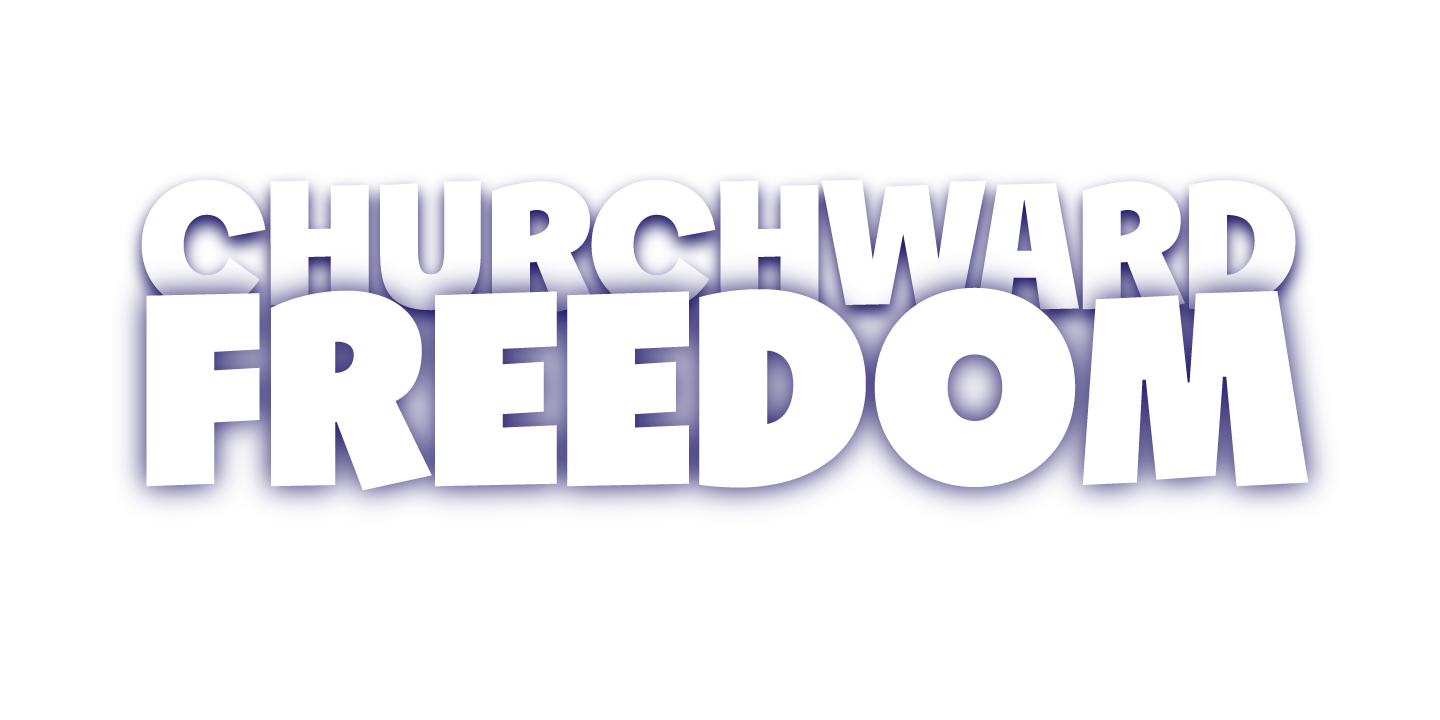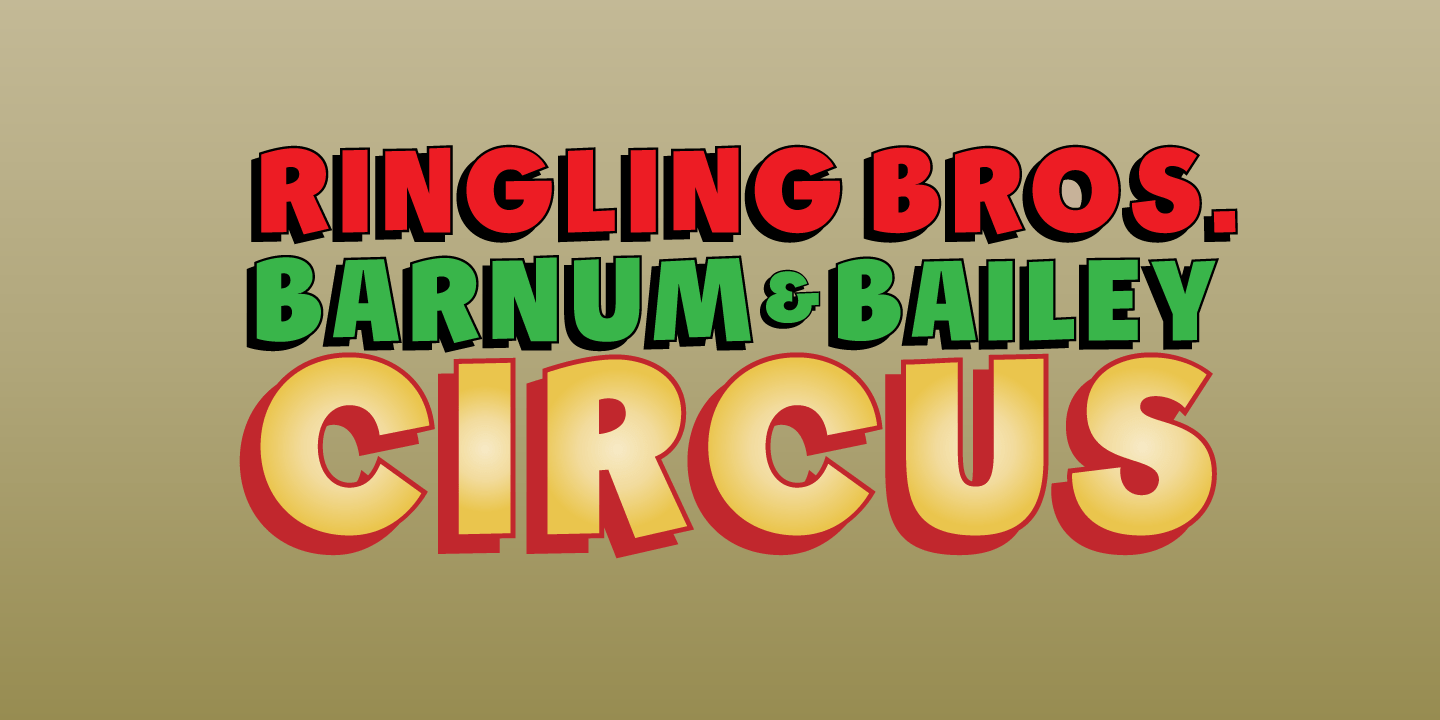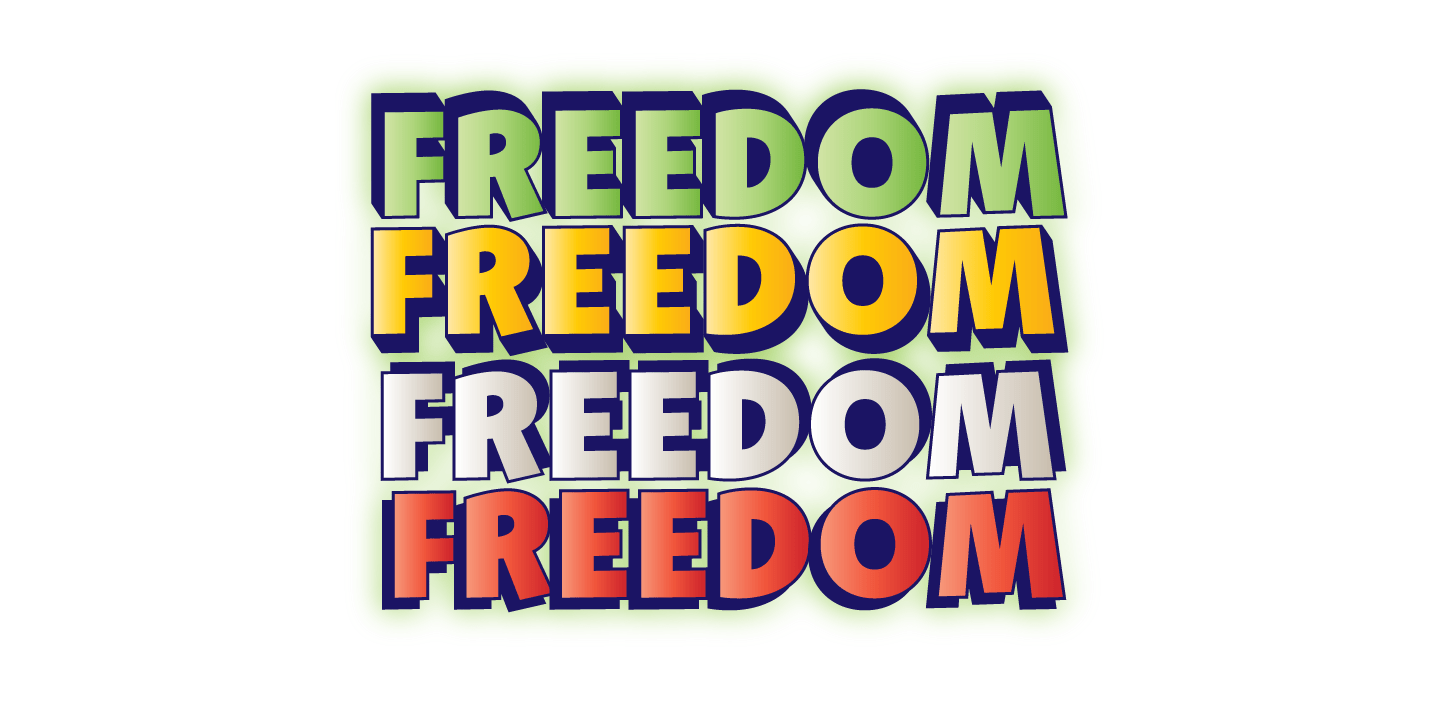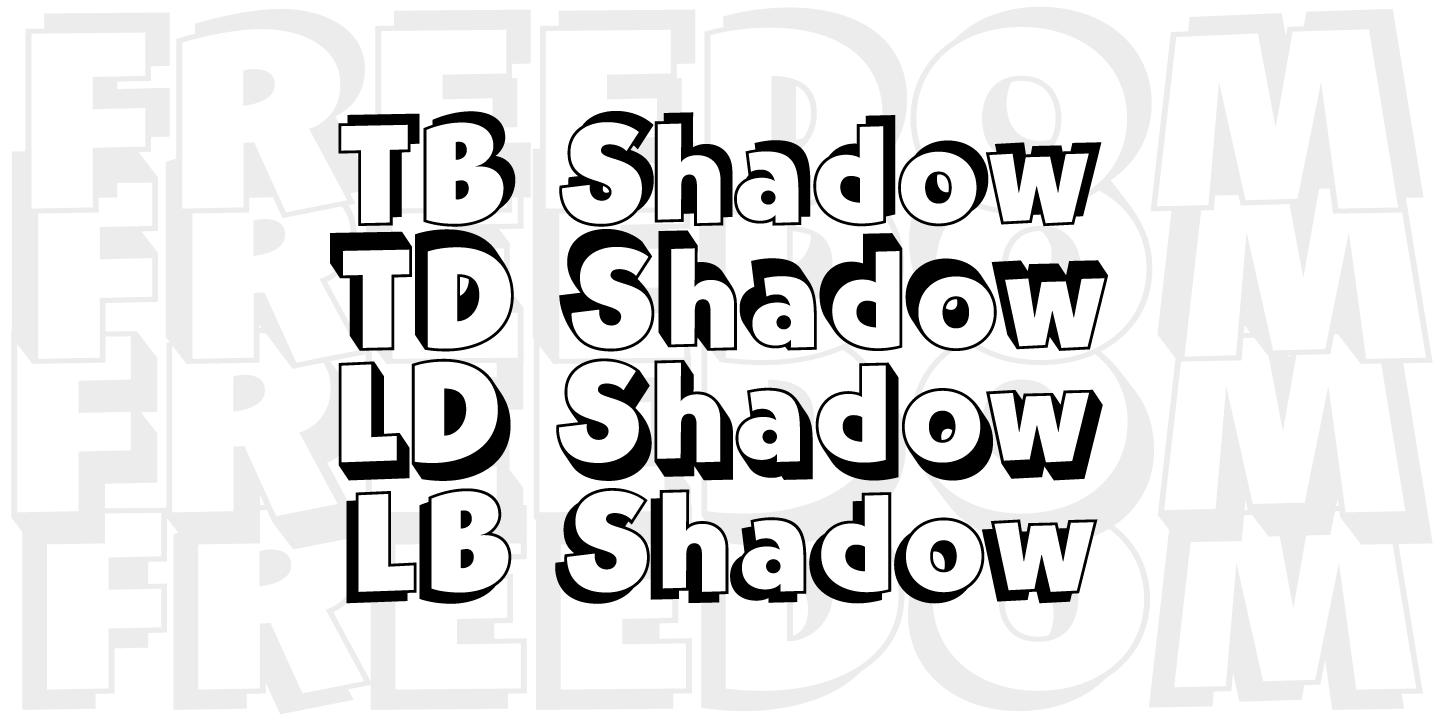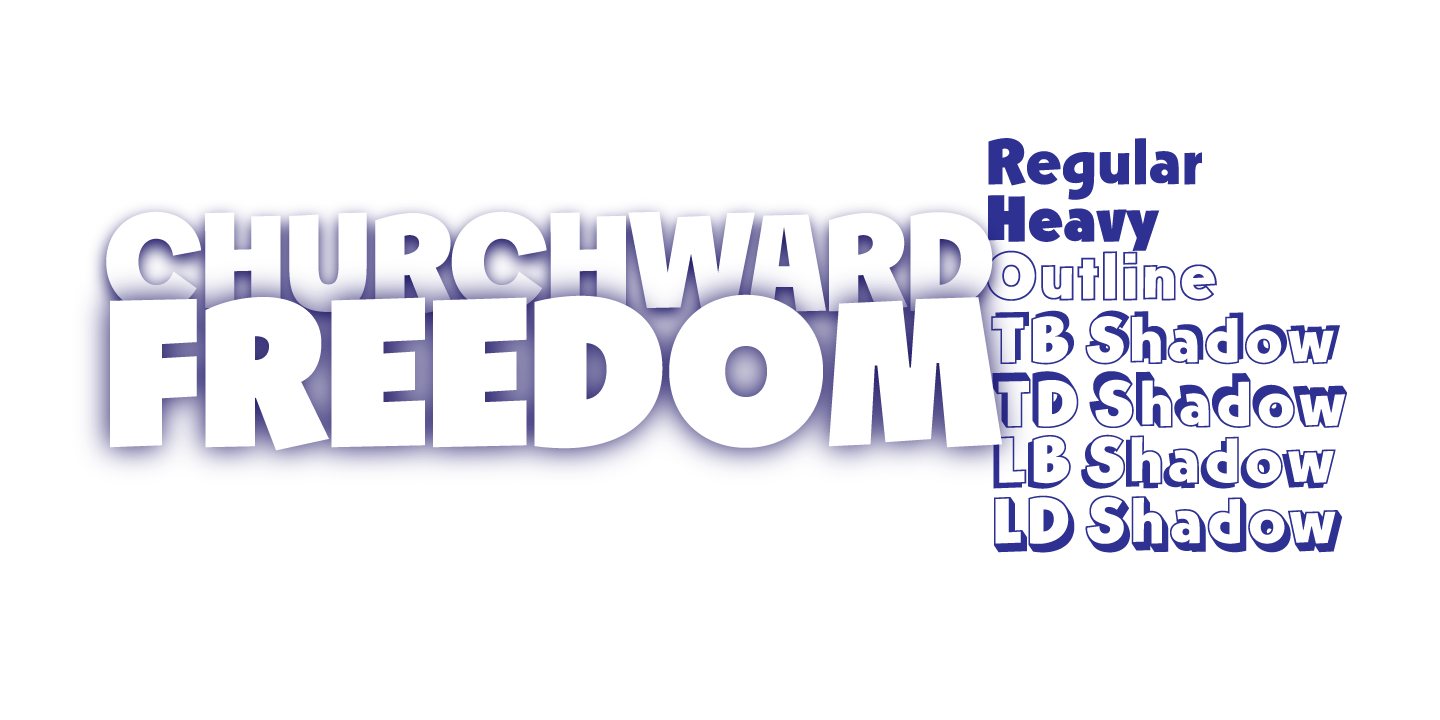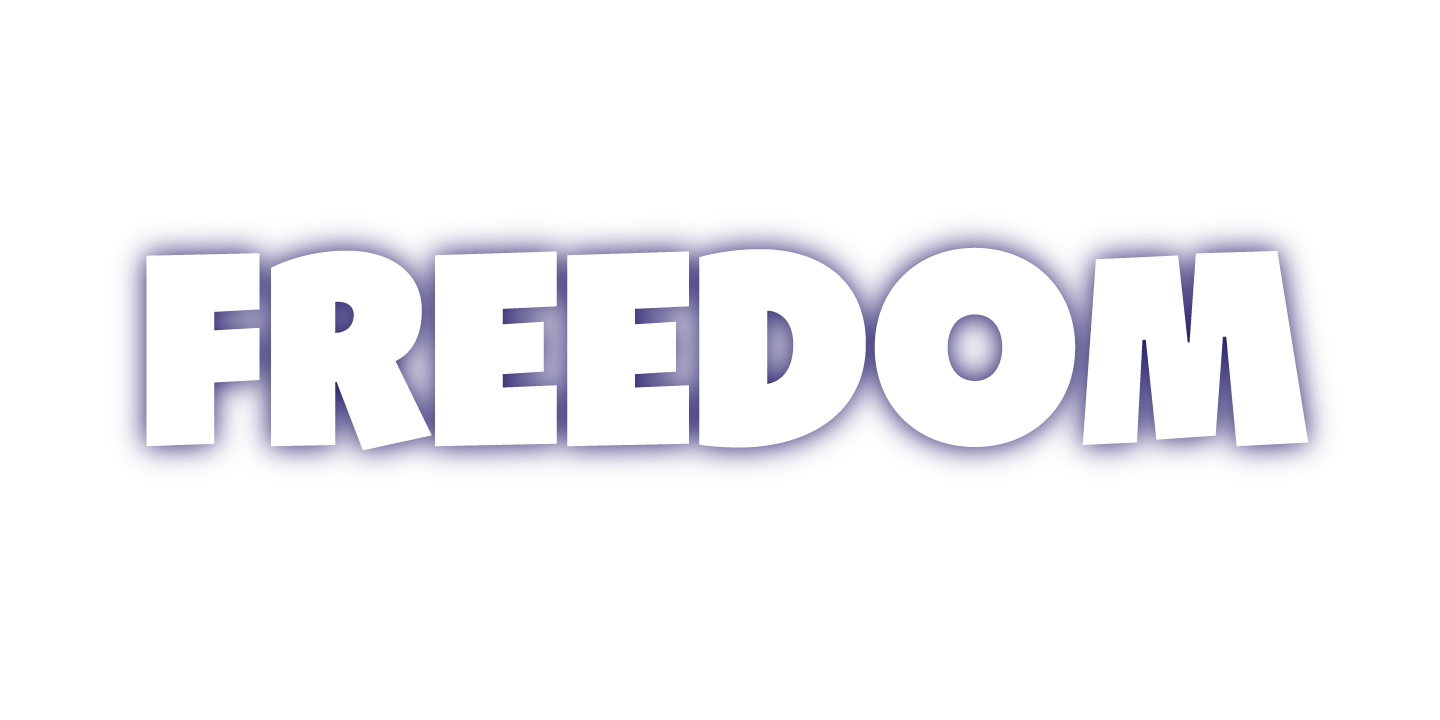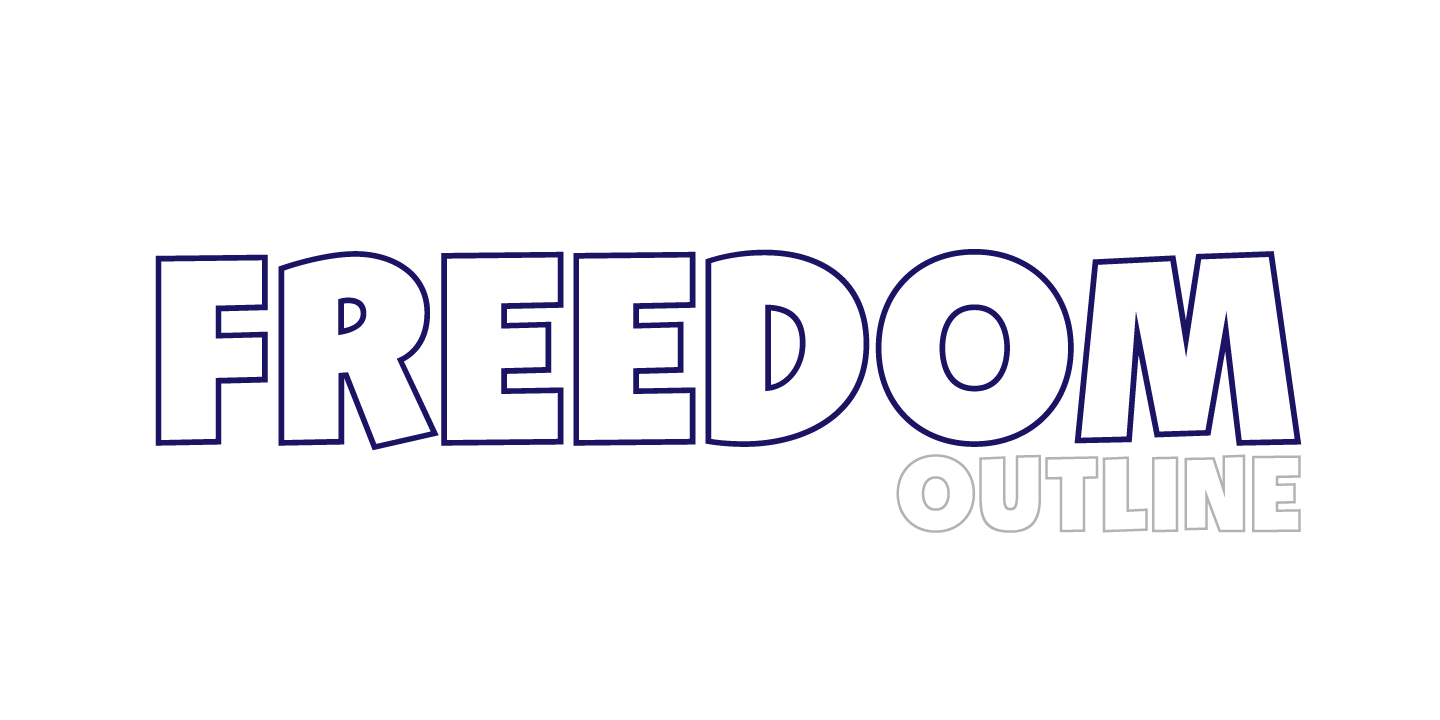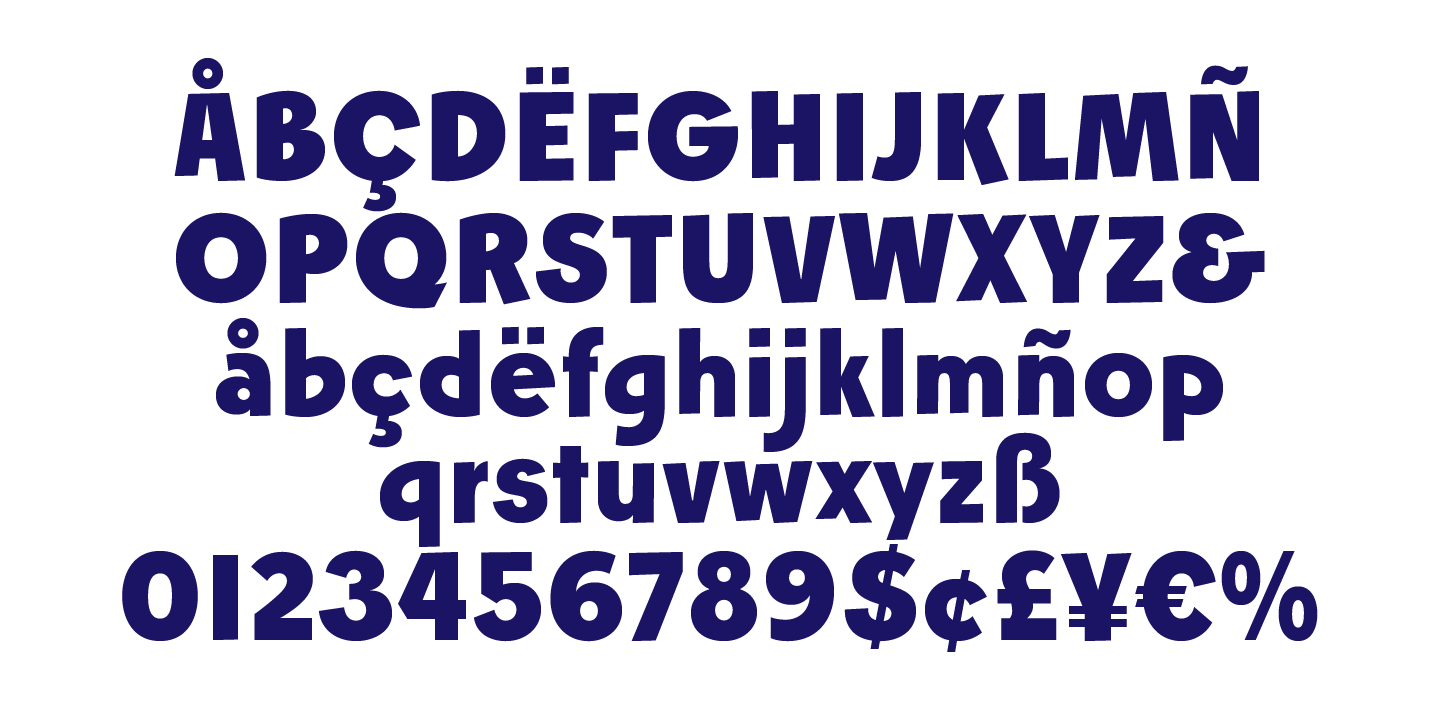
Churchward Freedom
Font Family by BluHead Studio
Churchward Freedom is a 7 font family designed in the early 1970's as photofonts by Joseph Churchward. The seven styles include two weights Regular and Heavy, one Outline, and four Shadow variants. The letters possess that funky Churchward vibe, and definitely a throwback style of casual sans lettering from the late 60's and early 70's. Churchward Freedom is meant for headlines and display work, but the Regular and Heavy can work in short text runs. There are proportional and tabular figure sets, and Joseph's original funky ampersand (like a rotated cent sign) preserved as an alternate. The charset of each font supports many Western European languages.